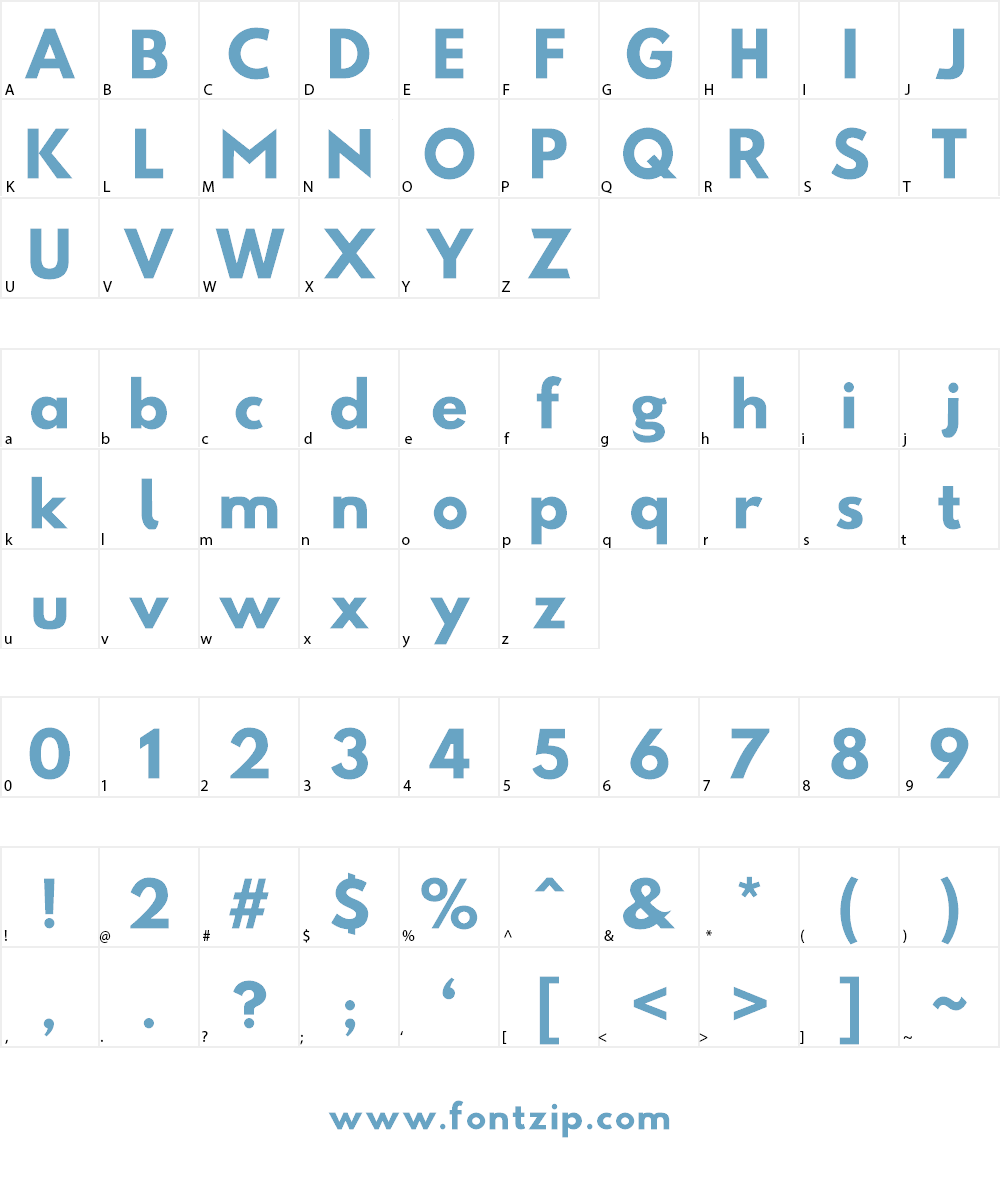
This is a Fork from the Open-Source font Hussar, by Cannot Into Space Fonts. It is made to fix several problems and inefficiencies in Hussar and add new styles of characters.